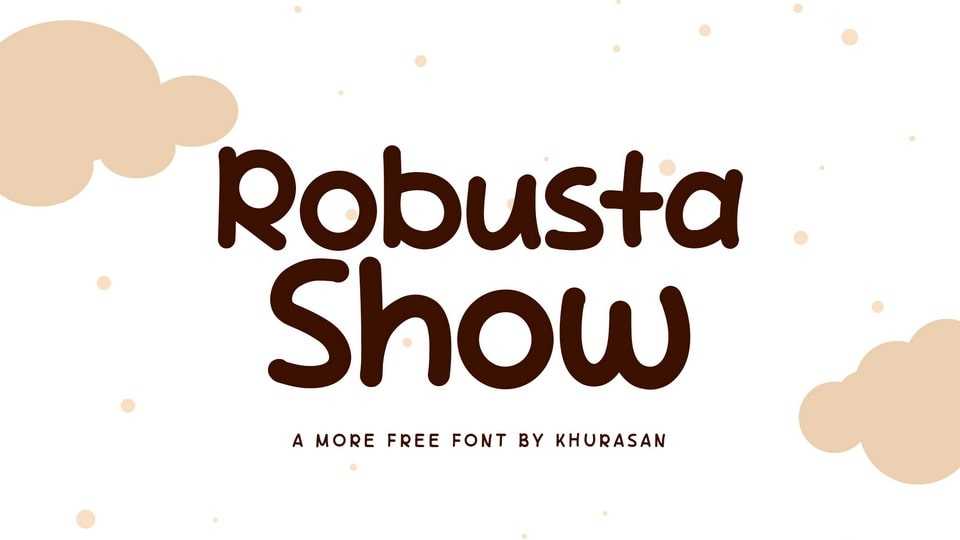
Download Robusta Show font, a hand drawn typeface that turns letters into cheerful companions on the page. This hand-drawn delight is brimming with playful strokes and endearing imperfections, creating a font that radiates cuteness.